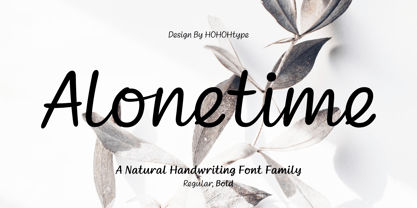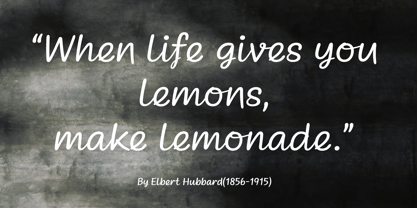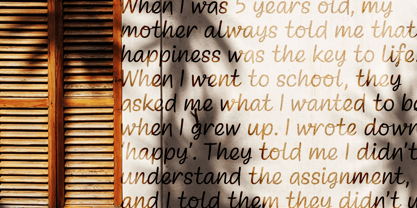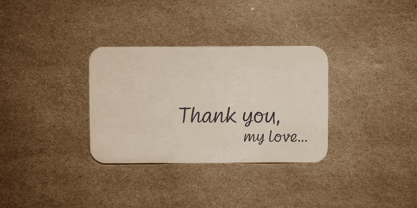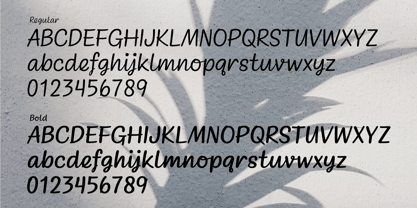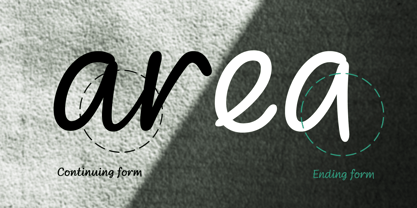
Alonetime
by HOHOHtype
The Alonetime Font Family was designed by Saebom Lee and published by HOHOHtype. Alonetime contains 2 styles and family package options. More about this family
The font "Alonetime" is a casual handwriting font. It's easy to read because it's tilted slightly to the right, like real handwriting. The font has the following characteristics:
1. Distinctive Letterforms
• Natural Irregularities:
Each character displays subtle variations in stroke width, curve degree, and termination, conveying a personal, handwritten quality rather than a machine-produced uniformity. These nuances add character to each letter, creating a friendly and approachable impression.
• Fluid Structure:
The letterforms rely on flexible lines and curves rather than rigid geometric shapes, emphasizing a soft and natural flow. This approach enhances the warm and emotional atmosphere typically associated with handwritten styles.
2. Delicate Curve Handling
• Smooth Curves and Graceful Flow:
The design predominantly uses rounded curves, favoring gentle and flowing lines over harsh, straight ones. This creates a visually balanced and harmonious appearance, turning the text into a piece of art beyond mere communication.
• Organic Connections and Terminations:
The beginnings and endings of strokes, as well as the transitions between them, are crafted to connect naturally. This organic linking makes each letter part of a cohesive whole while still maintaining its individual charm.
3. Display-Oriented Design
• Emphasis and Highlight Effects:
This font is particularly suited for titles, posters, or social media images where attention-grabbing visuals are needed. Its distinctive shapes and decorative elements make it ideal for creating visual focal points.
4. Versatility and Application
• Adaptable Across Media:
The warm, handwritten style and smooth curves make the font suitable for a variety of media, including personal messages, blogs, diaries, greeting cards, or event posters.
• Creating a Unique Atmosphere:
Using this font emphasizes individuality and an emotional tone, making it effective for expressing a personal brand or identity, as well as for conveying specific moods or messages.